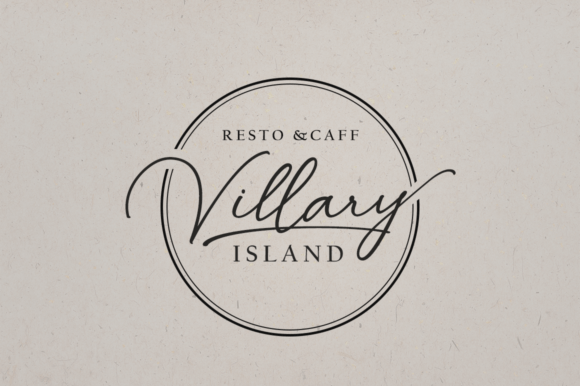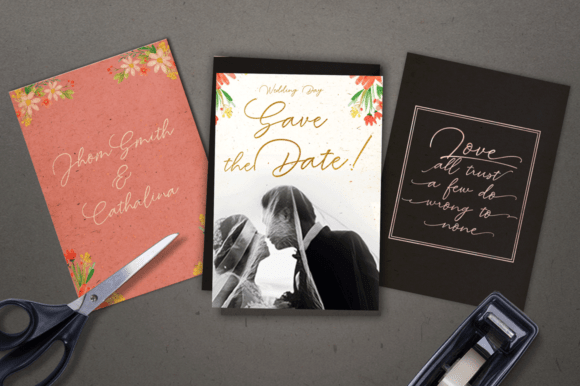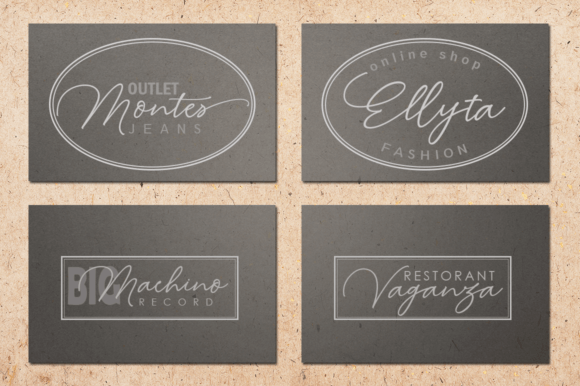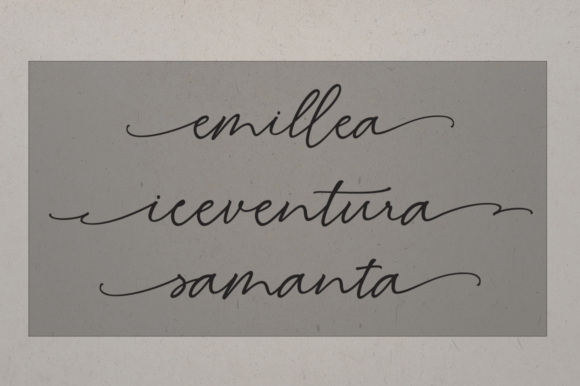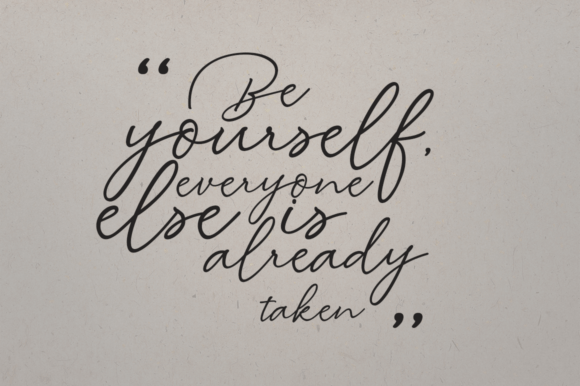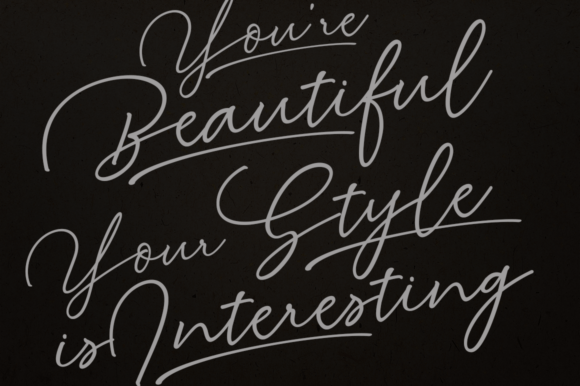
The Hunt for the Perfect Script Font: Discovering Britany
I still remember the frustration of scrolling through font after font, searching for the perfect script font for a client’s wedding invitation project. The client wanted something elegant, yet playful; something that would make their special day stand out. That’s when I stumbled upon the Britany font, and it quickly became my go-to for a variety of design projects.
What Makes Britany Special?
Britany is a script font that boasts a distinctive handwriting style, making it perfect for creating unique labels, business events, and more. One of its standout features is the inclusion of alternate characters, which are divided into OpenType features such as Stylistic Alternate, Stylistic Sets, Swash, and Ligature. These features can be accessed using OpenType smart programs like Adobe Illustrator and Adobe InDesign, or through the character map.
Here’s what I love about Britany:
• ✨ Unique and elegant handwriting style
• ✅ Alternate characters and OpenType features for added versatility
• ✅ Can be used for a variety of purposes, from headings and logos to wedding invitations and signage
And here are a few quirks to keep in mind:
• 🤔 Some users may find the font a bit finicky to work with, especially when it comes to accessing OpenType features
The Story Behind Britany
Britany is a font designed with love and care, inspired by the beauty of handwritten script. While the designer’s story may be shrouded in mystery, it’s clear that they poured their heart and soul into creating a font that’s both elegant and versatile.